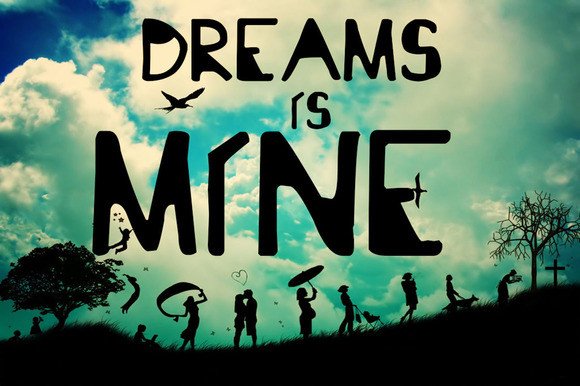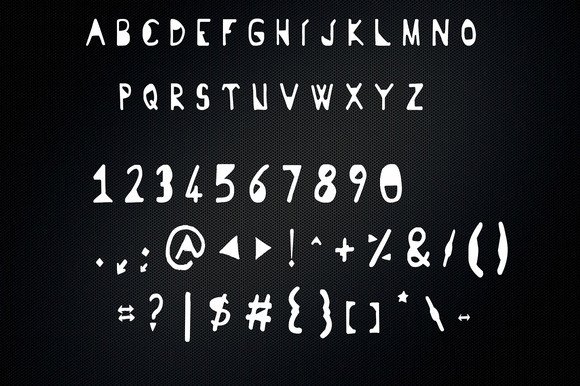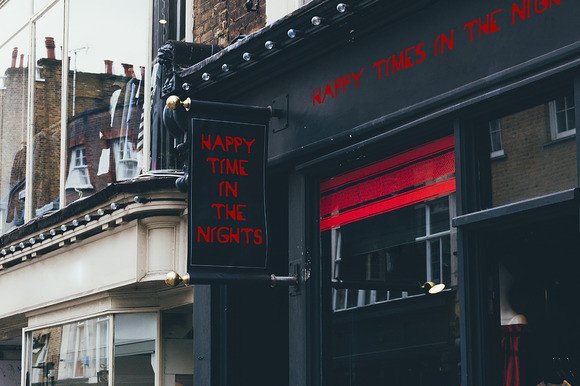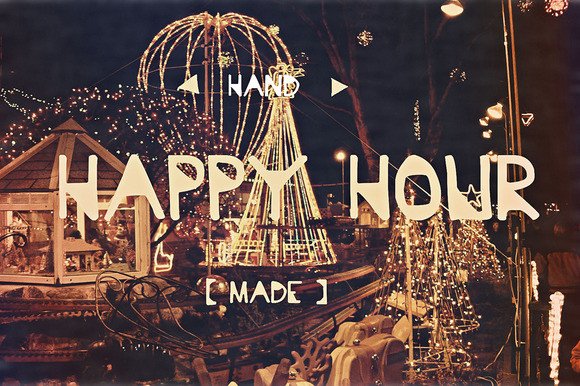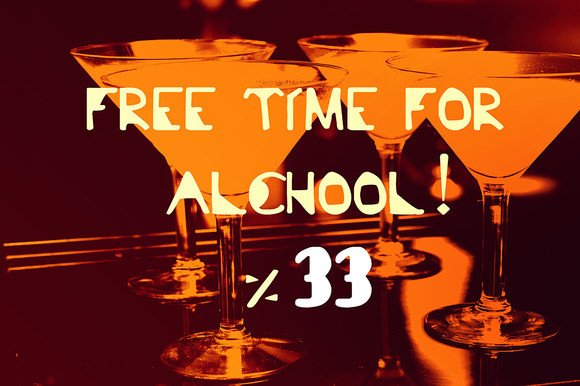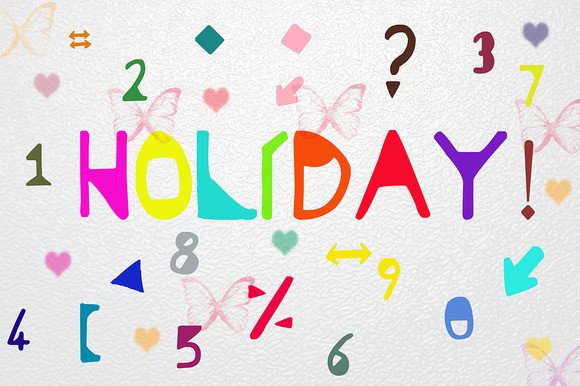
The Ultimate Guide to Happy Font: Adding a Dash of Whimsy to Your Designs
I’ll never forget the time I was working on a fun project for a children’s birthday party invitation. I had the concept, the colors, and the graphics all nailed down, but something was missing. That’s when I realized I needed a font that would capture the playful and carefree spirit of the party. After scouring through countless font libraries, I stumbled upon Happy Font, and it was love at first sight! 🎉
An Honest Review of Happy Font
So, what makes Happy Font so special? Let’s dive into the good stuff and a few quirks I’ve discovered.
- ✨ Unique and funny symbols that add a touch of whimsy to any design
- ✅ Easy to use and navigate, even for those who aren’t font experts
- 🎉 A wide range of characters and numbers that can be used in various creative projects
- 🌈 A colorful and playful aesthetic that’s perfect for designs that need a pop of fun
- 🤔 Some characters may not work well in smaller font sizes, so be sure to test and adjust accordingly
- ⚠️ Limited support for non-English languages, so double-check compatibility before use
The Backstory of Happy Font
Happy Font was designed with one goal in mind: to bring a smile to people’s faces. The designer, inspired by the joy of childhood and the power of creativity, set out to create a font that would make designs more playful and fun. With its unique symbols and colorful aesthetic, Happy Font is the perfect tool for anyone looking to add a dash of whimsy to their projects.
Q: Is Happy Font suitable for body text?
A: While Happy Font is perfect for headings and titles, it may not be the best choice for body text due to its playful and decorative nature.